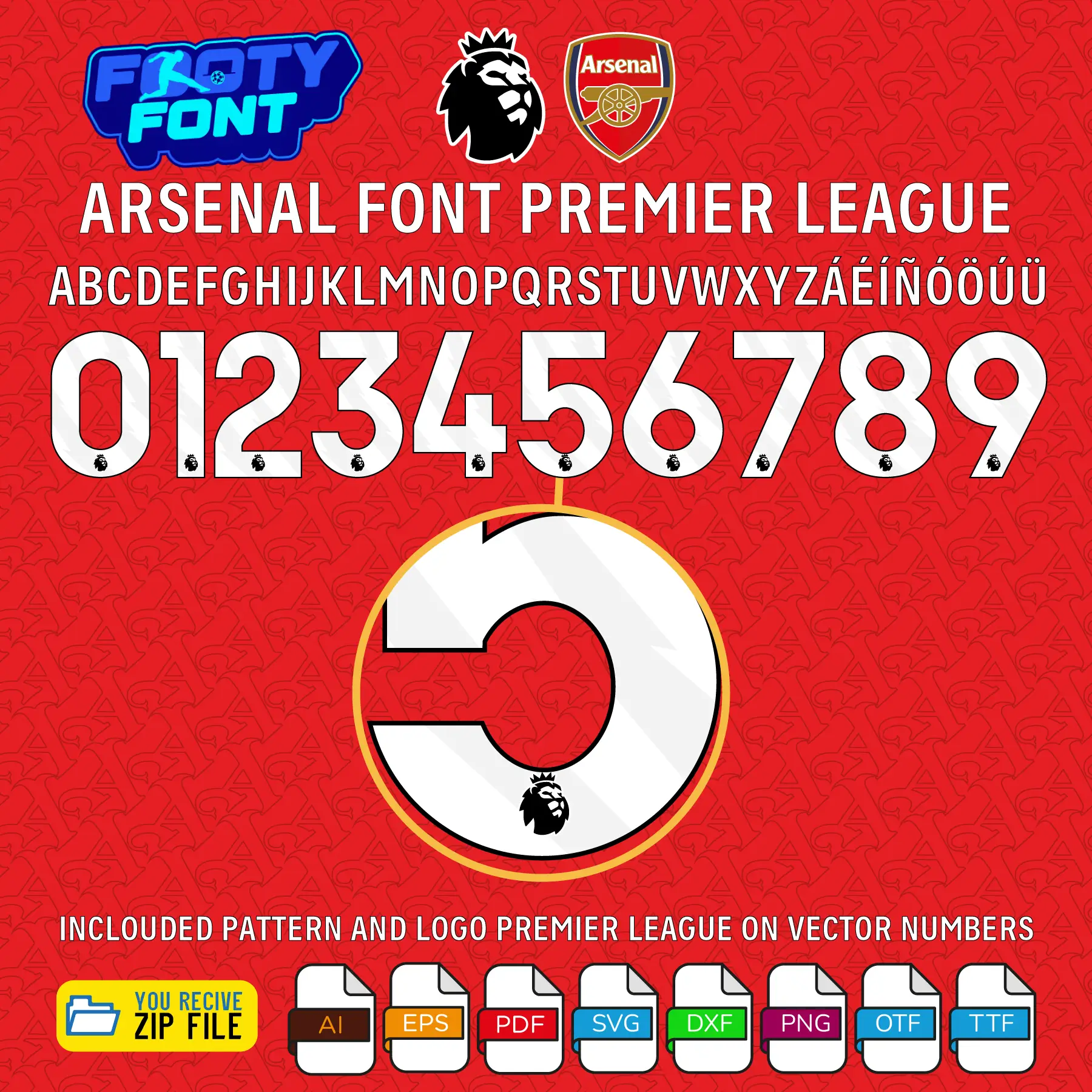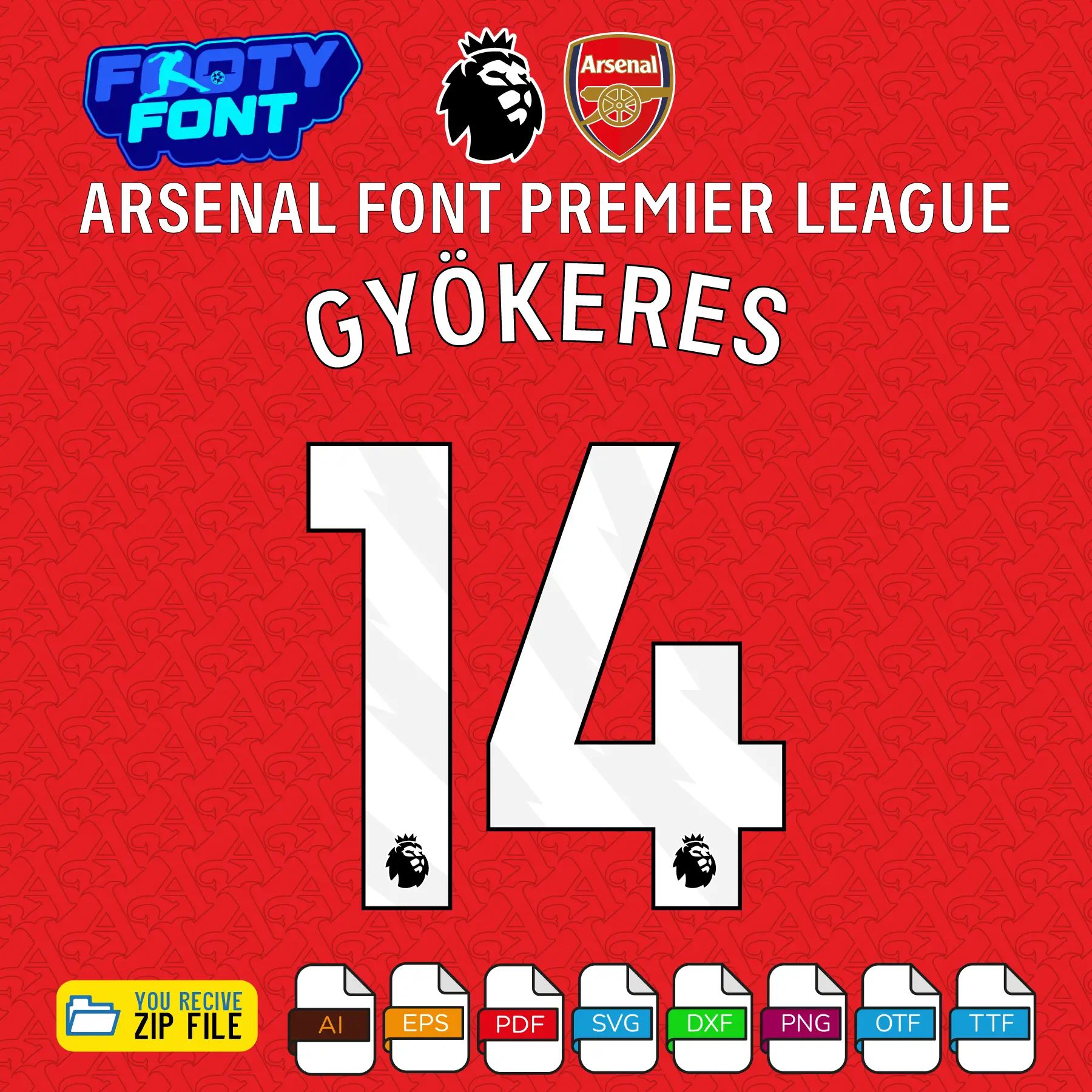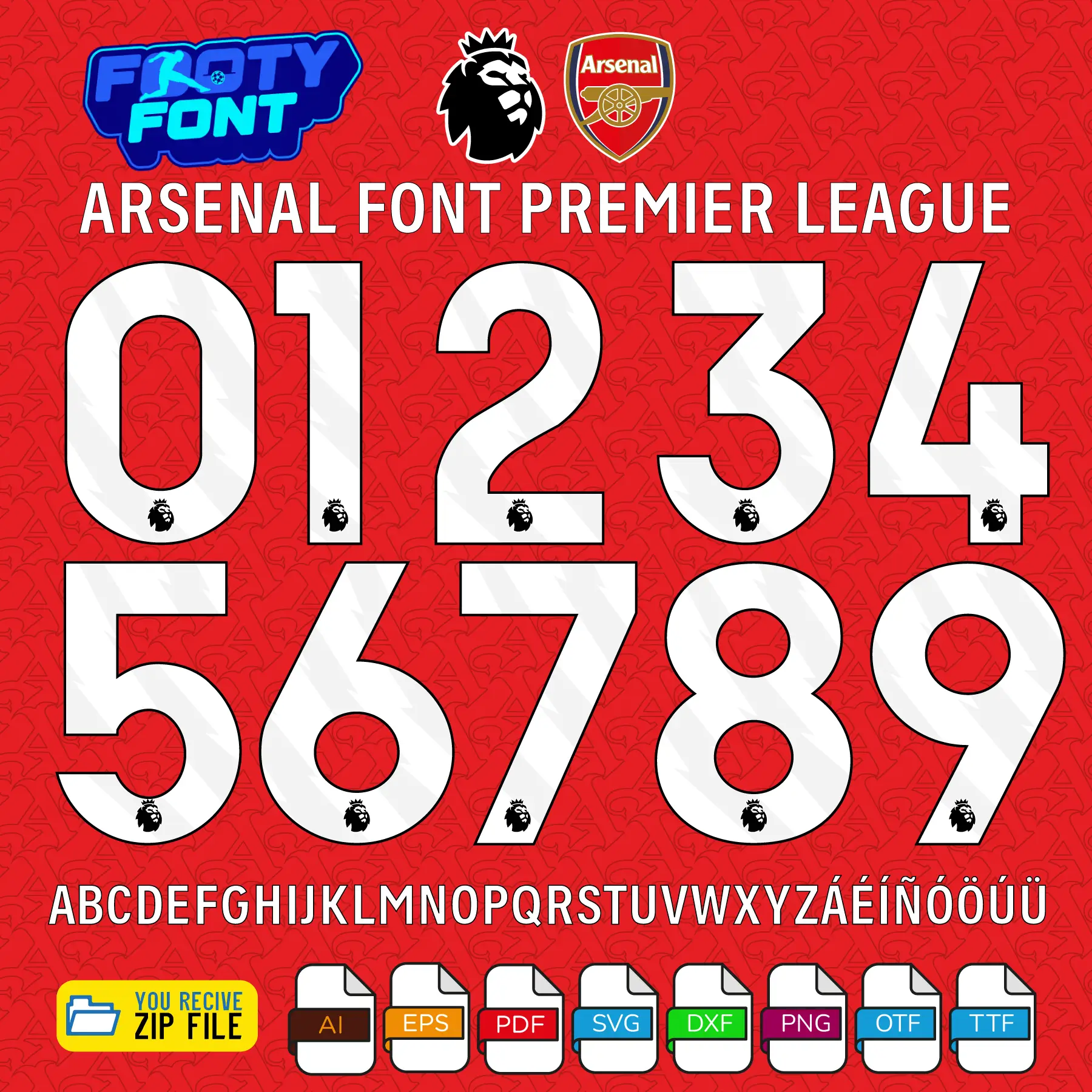
About the Arsenal 2025-2026 Football Font
Bring the roaring atmosphere of the Emirates Stadium to your designs with this font, inspired by the Arsenal 2025-2026 Premier League home kit. This is a high-quality typeface designed to replicate the official Premier League style lettering and numbering worn on the iconic red and white Gunners jersey during their domestic campaign.
This font captures the style worn by Arsenal’s biggest stars like captain Viktor Gyokeres, Bukayo Saka, and Declan Rice. It is an absolute must-have for fans creating custom jersey designs, digital art, or matchday posters that celebrate their support for North London’s finest.
Arsenal Font Premier League 2025-2026 showing the complete alphabet and white numbers for the home kit.
Arsenal Font Premier League 2025-2026 (Home Kit)